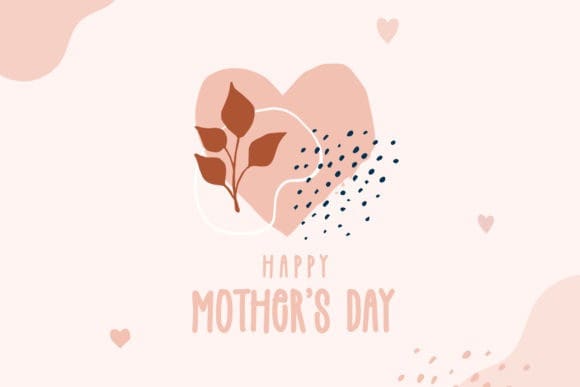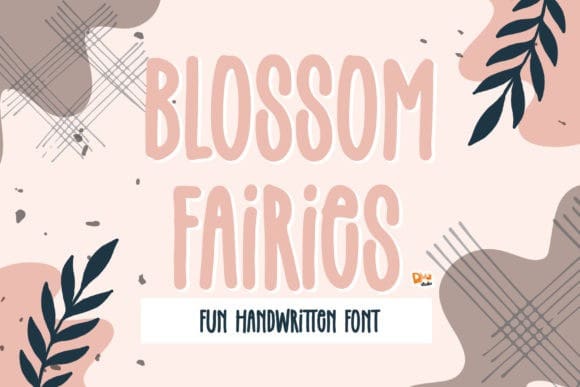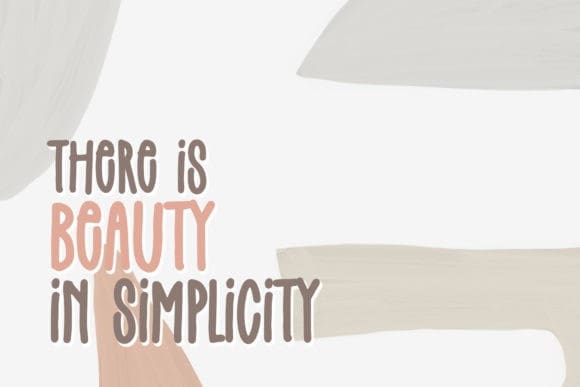
Blossom Fairies Font
Blossom Fairies Font. Make your spring season sweeter than any season by giving your loved ones some lovely gifts! This sweet handwritten font is an awesome font for your gift design and your lovely crafts.